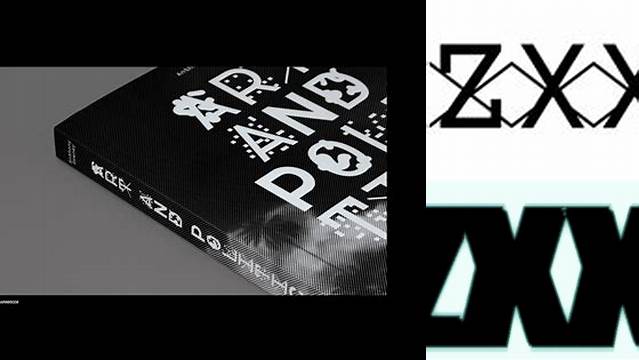
In this article, we're diving deep into the world of ZXX font, a fascinating and unique typeface designed to challenge the very nature of readability. If you're a designer, a privacy enthusiast, or simply someone who loves quirky and innovative projects, you've come to the right place! We'll explore what ZXX font is, its origins, its different variations, and, most importantly, how you can download it for free in TTF format. So, buckle up and let's get started!
What Exactly is ZXX Font?
Okay, guys, let's break down what makes ZXX font so special. Imagine a font that's intentionally difficult to read – that's the essence of ZXX. This isn't some accidental design flaw; it's a deliberate artistic statement. ZXX font is essentially an obfuscation typeface. Now, that's a fancy word, but what does it really mean? Obfuscation, in this context, refers to the act of making something unclear, obscure, or unintelligible.
So, the primary goal of ZXX font is to make text as hard to read as possible, both for humans and for machines. Why would anyone want to do that? Well, the creator of ZXX, Sang Mun, designed it as a response to government surveillance and data collection. The idea is that if we can make text unreadable to automated systems, we can potentially protect sensitive information from being easily harvested. Think of it as a form of typographic camouflage! The design itself is a fascinating blend of deconstructed letterforms, overlapping strokes, and visual noise. It challenges our preconceived notions of what a font should look like and how it should function. It pushes the boundaries of typography and raises questions about privacy, surveillance, and the accessibility of information. You'll find that ZXX font isn't just one style; it's a family of styles, each with its own level of obfuscation. Some variations are subtly distorted, while others are almost completely illegible. This allows users to choose the level of obscurity they need, depending on the context. In a world where our data is constantly being collected and analyzed, ZXX font offers a provocative and visually striking way to push back. It's a reminder that design can be a powerful tool for social commentary and resistance.
The Origins and Philosophy Behind ZXX
To truly appreciate ZXX font, it's essential to understand its origins and the philosophy that drives it. The font was created by Sang Mun, a South Korean-born graphic designer and artist. Mun's work often explores themes of technology, surveillance, and the human condition in the digital age. He's deeply concerned about the increasing erosion of privacy in our society and the ways in which our data is being collected, stored, and used. The inspiration for ZXX font came from Mun's research into anti-surveillance techniques and technologies. He was particularly interested in methods that could be used to protect sensitive information from automated systems, such as optical character recognition (OCR) software. OCR is a technology that allows computers to "read" text in images and documents. It's used extensively in data mining, surveillance, and other applications. Mun realized that if he could create a font that was difficult for OCR to decipher, he could potentially create a tool for protecting privacy. But ZXX font isn't just about technology; it's also about art and social commentary. Mun sees the font as a way to raise awareness about the issue of surveillance and to spark a conversation about the importance of privacy in the digital age. The name ZXX itself is a reference to the Library of Congress Classification system, where "Z" represents the most general category of information. By naming the font ZXX, Mun is suggesting that privacy is a fundamental human right that should be protected. The design of the font reflects this philosophy. The deconstructed letterforms and overlapping strokes are intended to create visual noise that interferes with OCR algorithms. But they also serve as a metaphor for the fragmented and often opaque nature of the digital world. ZXX font challenges us to think critically about the technologies we use and the ways in which they impact our lives. It's a reminder that we have a responsibility to protect our privacy and to advocate for a more just and equitable digital society.
Exploring the Different Styles of ZXX Font
One of the coolest things about ZXX font is that it's not just a single typeface. It's actually a family of fonts, each with its own unique style and level of obfuscation. This means you have a range of options to choose from, depending on your specific needs and preferences. Let's take a look at some of the key styles you'll find within the ZXX font family. First up, we have the "Sans" style. This is one of the more legible variations of ZXX font, but it still incorporates elements of obfuscation. The letterforms are slightly distorted, and there are subtle overlaps and visual disruptions. The "Sans" style is a good choice if you want to make a statement without sacrificing readability entirely. It's suitable for headlines, posters, and other applications where you want to grab attention. Then there's the "Noise" style. As the name suggests, this style is much more visually chaotic. The letterforms are heavily distorted, and there's a lot of overlapping strokes and noise. The "Noise" style is significantly more difficult to read than the "Sans" style, but it's also more effective at obfuscating text from automated systems. If you're looking for a high level of privacy protection, the "Noise" style is a solid option. For those who want to go even further, there's the "Distorted" style. This is one of the most extreme variations of ZXX font. The letterforms are almost completely unrecognizable, and the text is incredibly difficult to decipher. The "Distorted" style is ideal for situations where you need maximum obfuscation, such as protecting highly sensitive information. In addition to these core styles, there may be other variations of ZXX font available, depending on the specific version you download. Some versions may include additional weights or styles, such as bold or italic. It's worth exploring the different options to find the style that best suits your needs. The versatility of ZXX font, with its range of styles, makes it a powerful tool for both artistic expression and privacy protection. Whether you're creating a provocative design or trying to safeguard sensitive data, ZXX font offers a unique and effective solution.
Using ZXX Font in Your Projects: Ideas and Inspiration
Now that you've got ZXX font installed, let's brainstorm some ways you can actually use it in your projects. This font is so unique and unconventional that it opens up a world of creative possibilities. But where do you even begin? First off, consider the message you want to convey. ZXX font, with its inherent obfuscation, is perfect for projects that deal with themes of privacy, surveillance, data security, and resistance. Think about using it in posters, flyers, or social media graphics that raise awareness about these issues. It can add a powerful visual dimension to your message. On the other hand, ZXX font can also be used for purely artistic purposes. Its deconstructed letterforms and visual noise create a striking and eye-catching effect. Experiment with using it in abstract designs, album art, or even website headers. Don't be afraid to push the boundaries and see what you can come up with. If you're a designer, ZXX font can be a valuable addition to your toolkit. It can help you create designs that stand out from the crowd and make a bold statement. Use it sparingly, though, as its illegibility can make it difficult to read in large blocks of text. Think about using ZXX font for logos, branding elements, or short headlines. In the realm of typography, ZXX font can be used to create interesting visual hierarchies. For example, you could use a more legible font for the main body of text and ZXX font for headings or subheadings. This can add a layer of visual interest and complexity to your design. Web designers can also incorporate ZXX font into their projects. It can be used for decorative elements, such as banners or background images. However, be mindful of accessibility. Since ZXX font is difficult to read, it's not a good choice for important content that users need to understand. Remember, ZXX font is a statement. It's a conversation starter. It's a way to challenge conventions and push the boundaries of design. So, have fun with it, experiment with it, and see what kind of creative magic you can conjure up!
So, there you have it, guys! A comprehensive look at the fascinating world of ZXX font. We've explored its origins, its philosophy, its different styles, and how you can download it for free in TTF format. We've also discussed some creative ways you can use ZXX font in your projects, from raising awareness about privacy issues to creating striking visual designs. ZXX font is more than just a typeface; it's a statement. It's a reminder that design can be a powerful tool for social commentary and resistance. It challenges us to think critically about the technologies we use and the ways in which they impact our lives. Whether you're a designer, an activist, or simply someone who appreciates innovative typography, ZXX font has something to offer. So, go ahead, download it for free, and start experimenting. Who knows, you might just create the next groundbreaking design!